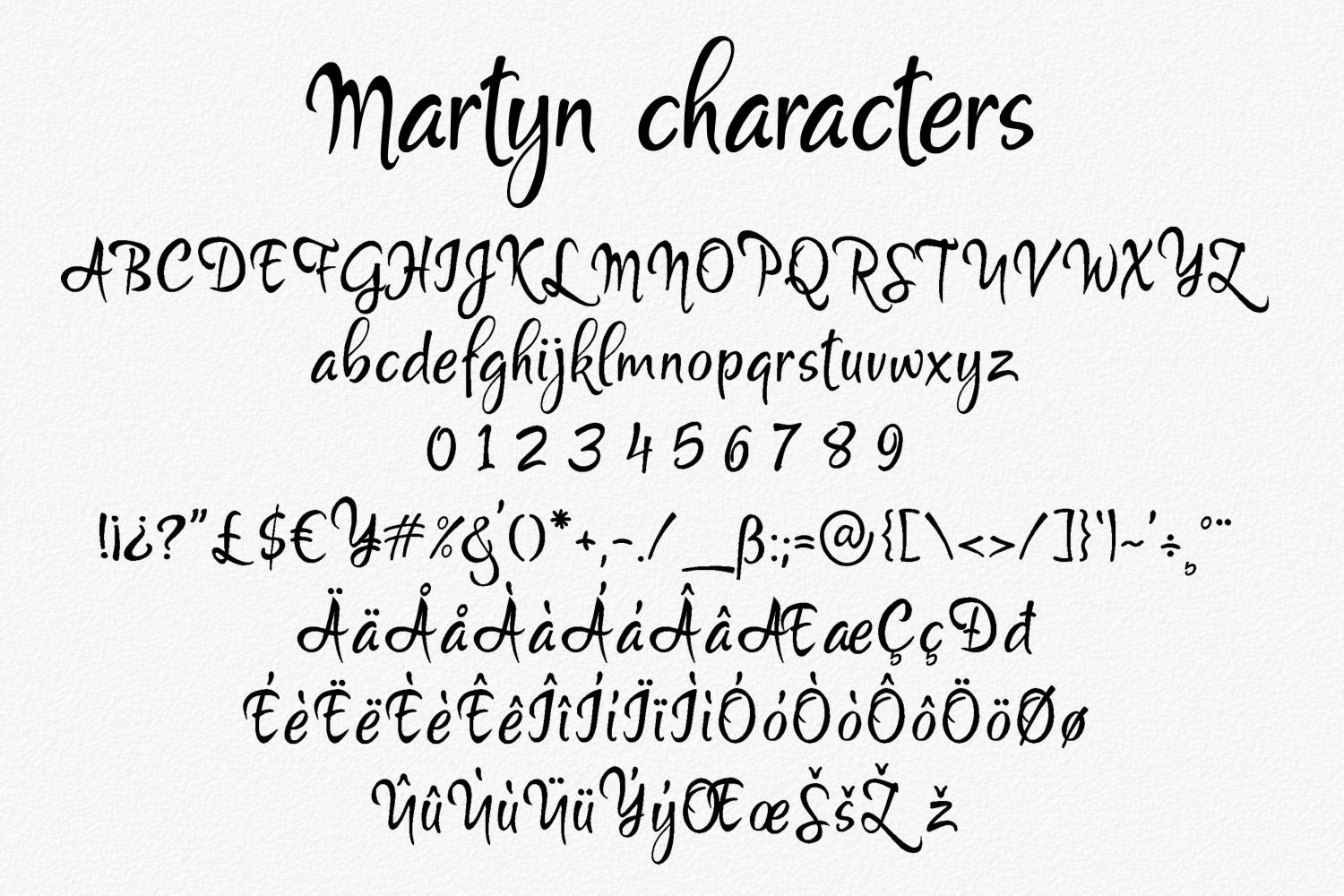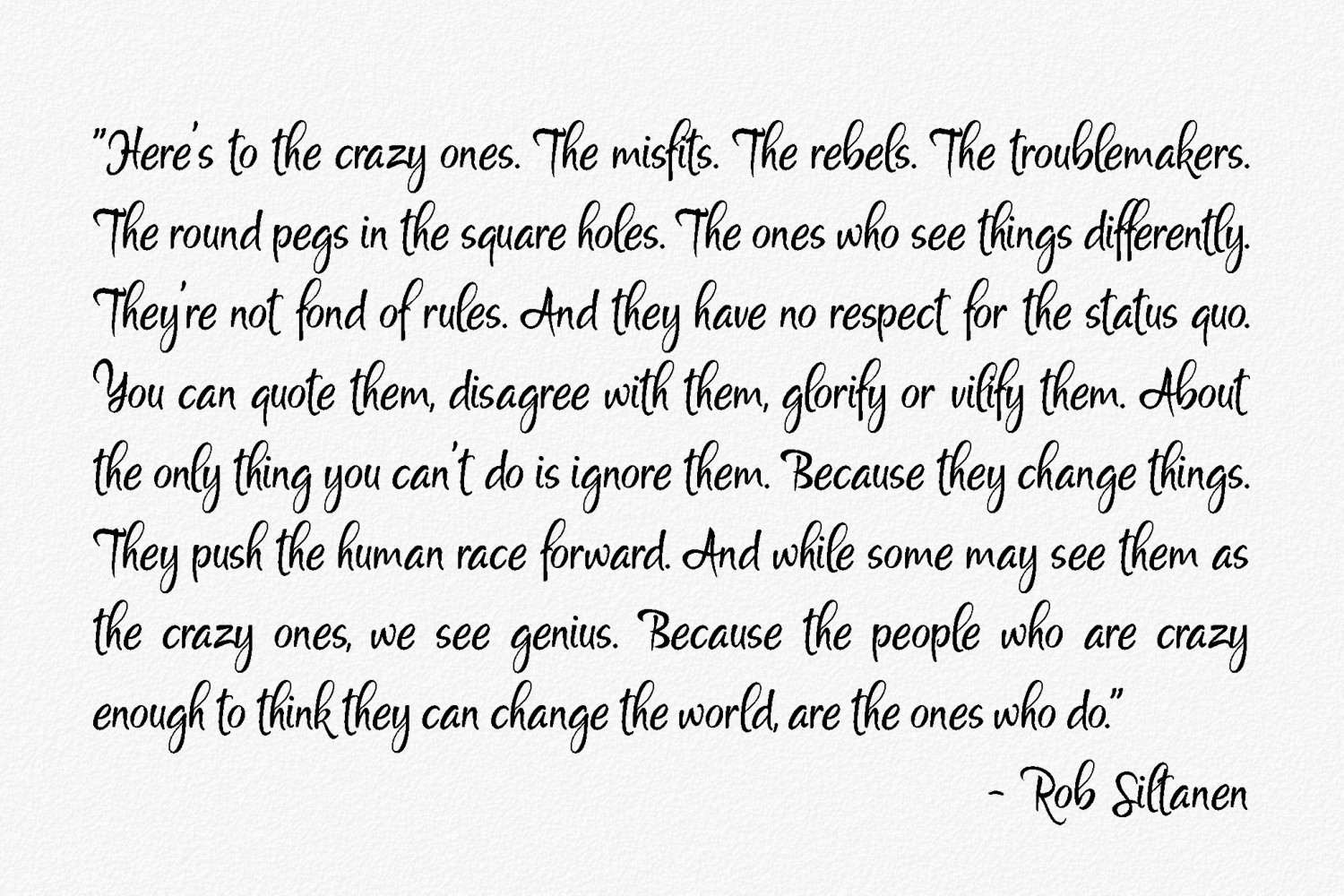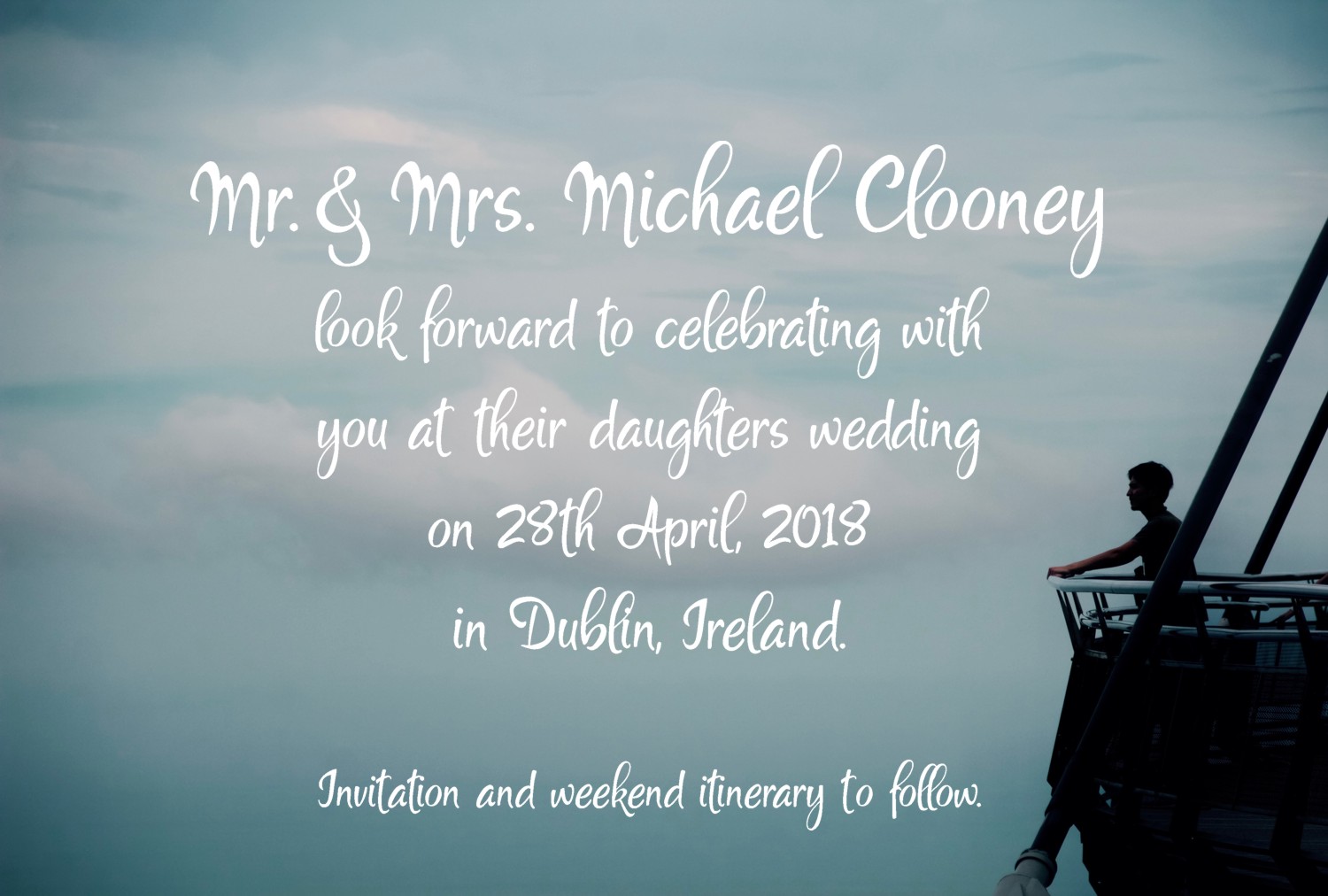
Introduction to Martyn Font
As you sit at your desk, surrounded by scattered papers and half-finished design projects, you’re hit with a sudden wave of inspiration. You envision a beautiful, modern script font that perfectly captures the essence of your creative vision. And that’s exactly where the Martyn Font comes in – a stunning, high-quality design resource that’s about to revolutionize your creative project.
With its unique blend of thick strokes and modern styling, the Martyn Font is the perfect addition to any designer’s toolkit. Whether you’re working on a free download or a high-end commercial project, this versatile font is sure to elevate your design to the next level. And the best part? It’s available for free, making it an invaluable resource for designers of all levels.
Key Features of Martyn Font
- Features a unique, modern design with a sleek and sophisticated aesthetic.
- Designed to be highly versatile, making it suitable for a wide range of creative applications.
- Resolution-independent, ensuring that the font remains crisp and clear at any size or resolution.
Honest Review: Martyn Font
As a designer, I’m always on the lookout for high-quality design resources to elevate my creative projects. Recently, I came across the Martyn Font, and I’m excited to share my thoughts on it.
- Unique and stylish design: The Martyn Font has a distinctive, modern look that sets it apart from other fonts.
- Transparent background: This allows for seamless integration into various design backgrounds.
- High quality: The font is well-crafted and looks great at different sizes and resolutions.
Any limitations ⚠️
- Limited character set: The font only includes uppercase and lowercase letters, with limited punctuation and special characters.
- No italic or bold variations: While the font looks great in its standard form, it would be nice to have more weight options.
Overall, I’m impressed with the Martyn Font. Its unique design and high quality make it a great addition to any designer’s toolkit. While it may have some limitations, it’s still a solid choice for creative projects.
Martyn Font
Martyn Font is a high-quality design resource ideal for creative projects requiring a modern and elegant touch. Its transparent background makes it versatile and easy to use in various applications.
Tips for Getting the Most Out of Martyn Font
For optimal results, use Martyn Font in conjunction with other high-quality design resources. Experiment with different font sizes, colors, and styles to create a unique and visually appealing design.
Martyn Font is ideal for a variety of creative projects, including business cards, brochures, and marketing materials. Its modern and elegant design makes it perfect for any project requiring a professional touch.
Alternatives to Martyn Font
Oswald is a popular sans-serif font known for its clean and modern design. It’s ideal for use in headings and titles, and its high-quality design makes it perfect for creative projects that require a professional touch. When to use: Headings, titles, and body text in modern and minimalistic designs. Compared to Martyn Font, Oswald has a more geometric and streamlined appearance, making it a great choice for digital products and web design.
Playfair Display is an elegant and luxurious script font that’s perfect for use in high-end creative projects. Its high-quality design features a transparent background, making it ideal for use on top of images or other design elements. When to use: Luxury branding, invitations, and high-end marketing materials. Compared to Martyn Font, Playfair Display has a more ornate and sophisticated appearance, making it a great choice for projects that require a touch of elegance.
Montserrat is a geometric sans-serif font that’s designed for use in digital products and web design. Its high-quality design features a clean and modern appearance, making it perfect for use in creative projects that require a professional touch. When to use: Digital products, web design, and mobile apps. Compared to Martyn Font, Montserrat has a more geometric and futuristic appearance, making it a great choice for projects that require a modern and innovative look.
Q: Is the Martyn Font suitable for high-resolution printing?
Yes, the Martyn Font is designed to be high-quality and suitable for high-resolution printing. It includes advanced features such as kerning, ligatures, and OpenType layout tables, which ensure that the font looks great at various font sizes and resolutions. Additionally, the font has a transparent background, making it ideal for use on dark or textured backgrounds.